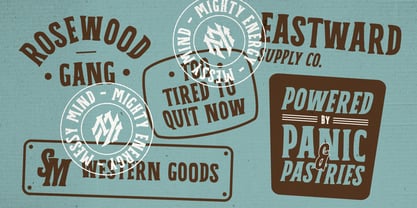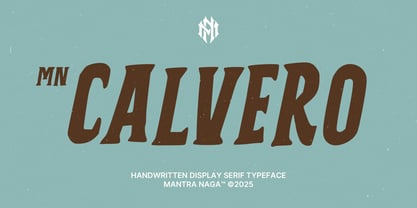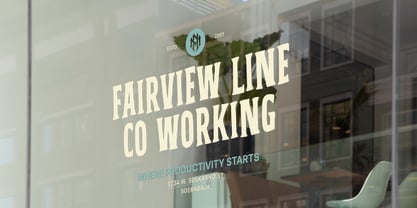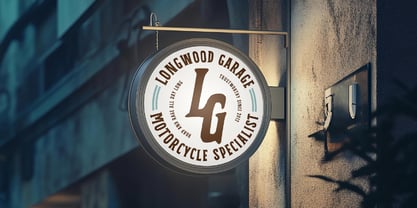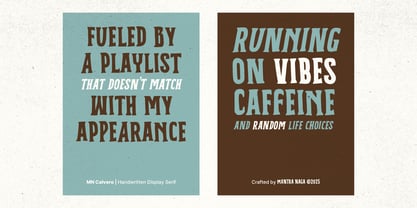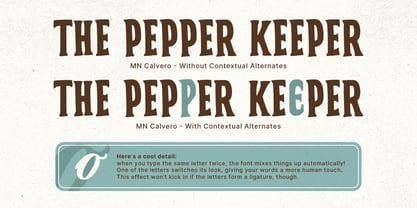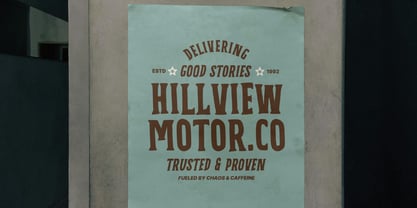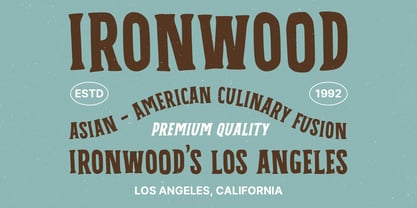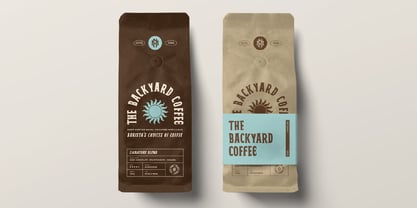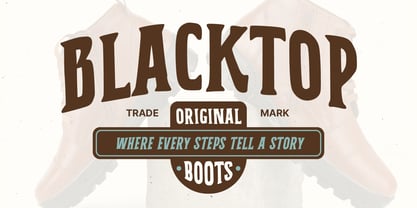
MN Calvero
The MN Calvero Font Family was designed by Fredo Eka Pratama and published by Mantra Naga Studio. MN Calvero contains 2 styles and family package options. More about this family
MN Calvero is a handcrafted display serif with a strong vintage soul. Designed in all caps to serve bold display needs, it shines in headlines, logotypes, posters, and anything that needs to stand out with character. Each letter is drawn manually by hand, giving it an authentic, imperfect charm that digital precision simply can't replicate. The result? A serif that feels nostalgic, rugged, and full of personality. Perfect for branding with a touch of timeless vintage appeal.